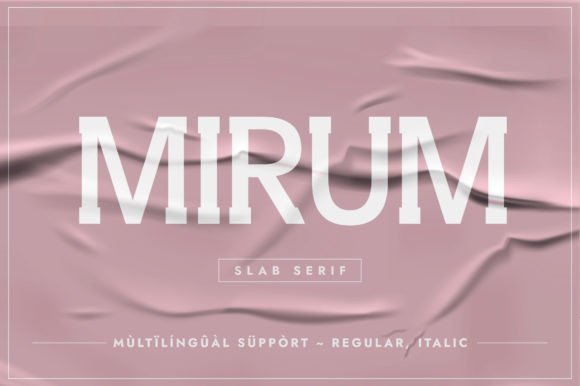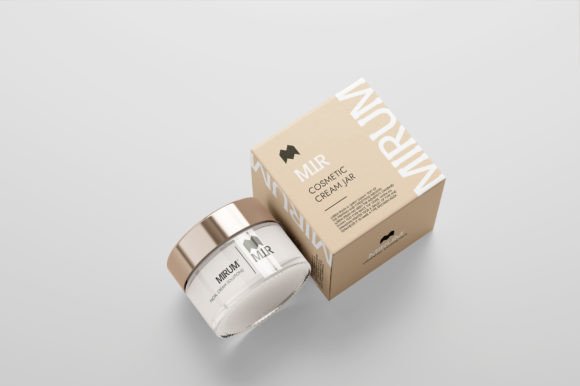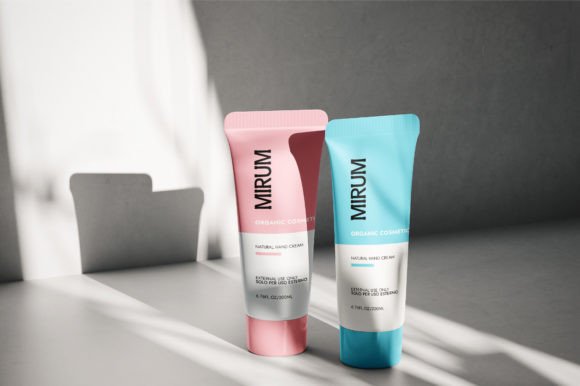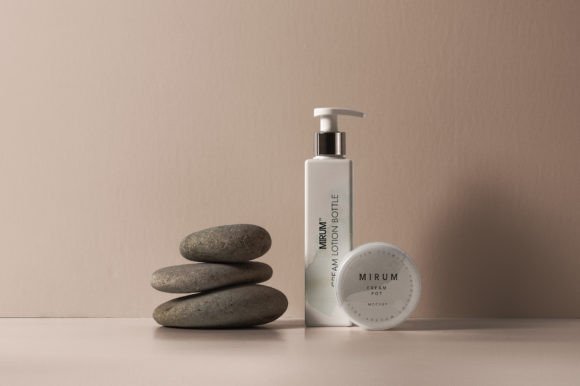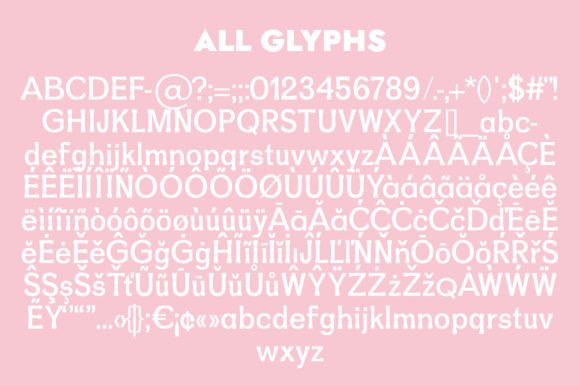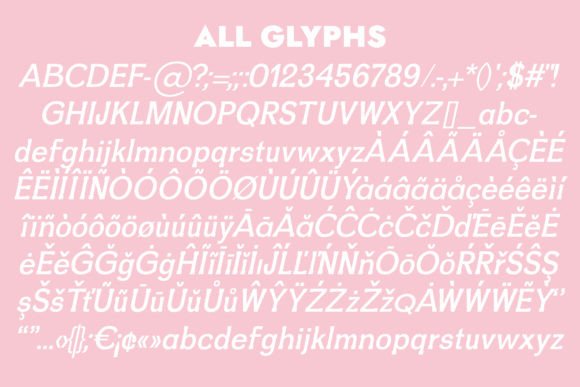
Mirum
Mirum: A Wonderful and Elegant Slab Serif Font
Mirum is a wonderful and elegant slab serif font that enhances any design theme. Furthermore, this versatile typeface makes a great addition to your font library. When you add it to your creations, you’ll quickly notice how it elevates them to the highest level!
Key Features of Mirum
• Wonderful Design: Offers a remarkable and appealing look.
• Elegant Style: Brings sophistication to any project.
• Versatile Use: Works well across different design themes.
• Elevating Quality: Takes designs to a higher level.
Best Uses for Mirum
Thanks to its versatile nature, Mirum works especially well for:
When using Mirum in your designs, keep these tips in mind:
• Try it for headlines or short text to show off its wonderful style.
• Use different sizes to highlight its elegant features.
• Pair with simpler fonts to create balanced layouts[4].
• Let it enhance your design’s overall appeal.
To sum up, Mirum is an excellent choice for designers seeking a wonderful and elegant slab serif font. Its versatility makes it a valuable addition to any font library. Whether you’re working on branding materials, creating headlines, or developing marketing content, Mirum offers the perfect blend of beauty and sophistication.
Moreover, Mirum’s unique design allows it to shine in various contexts where elegance is key. For instance, from logos to website headers, this font can lift your projects with its distinctive style. Also, its wonderful yet readable appearance works particularly well in designs that aim to make a refined impact.
In conclusion, Mirum truly captures the essence of elegant design in slab serif typography. Its versatility across different applications shows how well it can serve various creative needs. Therefore, for those wanting to add a touch of wonderful sophistication to their work, Mirum can enhance any design with its unique style. Ultimately, it’s perfect for designers aiming to elevate their projects to the highest level.